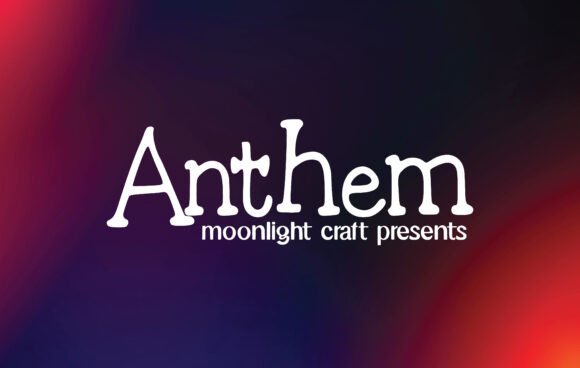
The Anthem Font: Elevate Your Designs with Elegance and Flair
Have you ever been in the midst of working on a design project, only to find yourself stuck on the perfect font? I recall a particularly frustrating experience where I was tasked with creating a logo for a client’s boutique brand. The brief was simple: elegant, eye-catching, and reflective of the brand’s sophisticated personality. After hours of scouring font libraries, I stumbled upon the Anthem font – a lovely, beautiful handwritten font that instantly resonated with my creative vision.
A Personal Review of Anthem Font
As I began experimenting with Anthem, I was struck by its versatility and charm. Here’s what I love about this font:
- ✨ Elegant and refined aesthetic, perfect for high-end branding and logos
- 💫 Supports OpenType features, allowing for creative exploration of glyphs and stylistic alternates
- 🎨 Beautifully crafted to evoke an emotional response, making it ideal for quotes and artistic projects
While Anthem has won my heart, it’s not without its quirks:
- 🤔 Limited availability of condensed or extended versions, which might limit its use in certain design contexts
- ⚠️ Some users may find the font’s elegance and refinement too subtle for bold or attention-grabbing applications
The Story Behind Anthem Font
While the origins of Anthem Font are shrouded in mystery, it’s easy to imagine a talented type designer pouring their heart and soul into crafting this beautiful font. Perhaps they were inspired by the elegance of handwritten calligraphy, the sophistication of luxury brands, or the emotional resonance of artistic expression. Whatever the inspiration, Anthem Font has undoubtedly captured the hearts of designers and creatives worldwide.
| Font Name | Anthem Font |
| What is the Anthem font best suited for? | The Anthem font is ideal for creating eye-catching logos, branding, and quotes. Its elegant and refined aesthetic makes it perfect for high-end applications. |
| Is Anthem a difficult font to read? | No, Anthem is highly legible, even at smaller font sizes. Its elegant and refined design ensures that your text remains clear and easy to read. |
| Can I use Anthem with OpenType features? | Yes, Anthem supports OpenType features, allowing you to explore glyphs, stylistic alternates, and other creative options to enhance your design. |